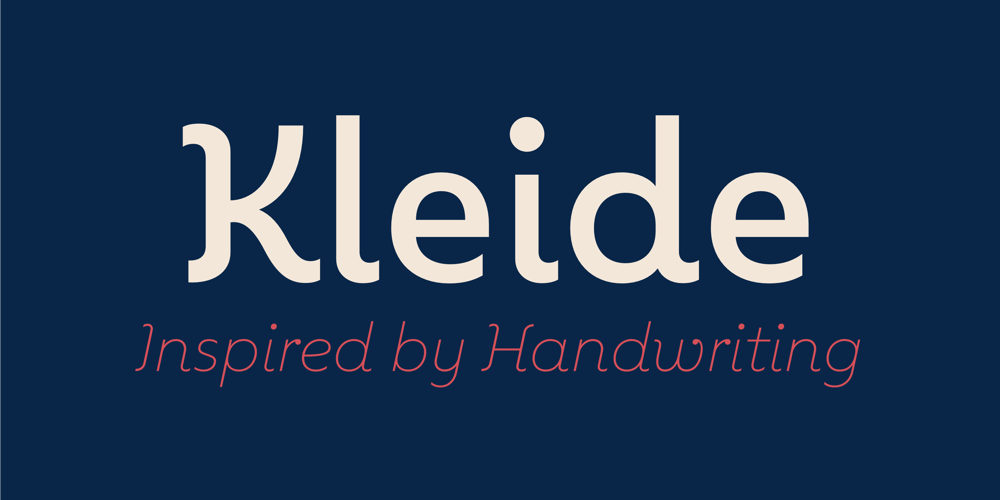
Kleide Font Family was designed by Nico Inosanto and published by Nootype. Kleide contains 12 styles and family package options. Kleide is an elegant font inspired by handwriting. The Kleide family includes 6 weights, from Thin to Black, with their corresponding italics. This elegant family includes OpenType Features such as Proportional Figure, Tabular Figures, Numerator, Superscript, Denominators, Scientific Inferiors, Subscript, Ordinals, Fractions and a lot of ligatures. The fonts have extended characters set to support Central, Eastern and Western European languages. Kleide is perfectly suitable for cool & fresh work.